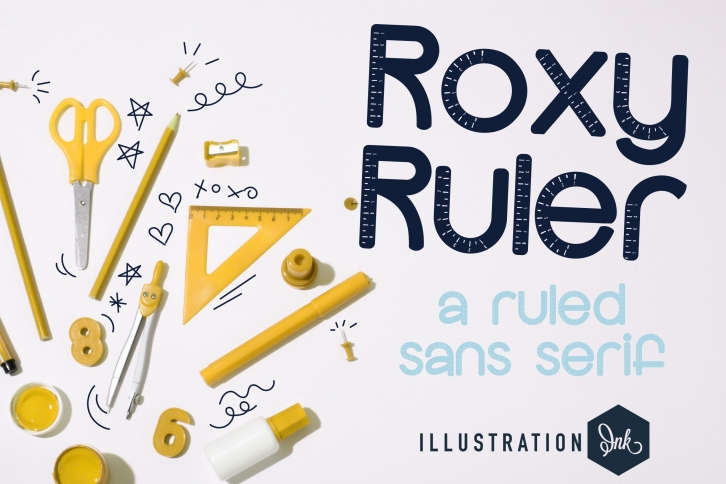
ZP Roxy Ruler is a trendy and unique font with an authentic style. It was designed by Illustration Ink and it's a great choice for creative people who need such a font. It was released on August 16, 2022 and the file size is 9.96 MB. ZP Roxy Ruler will add an organic vibe to any design idea!